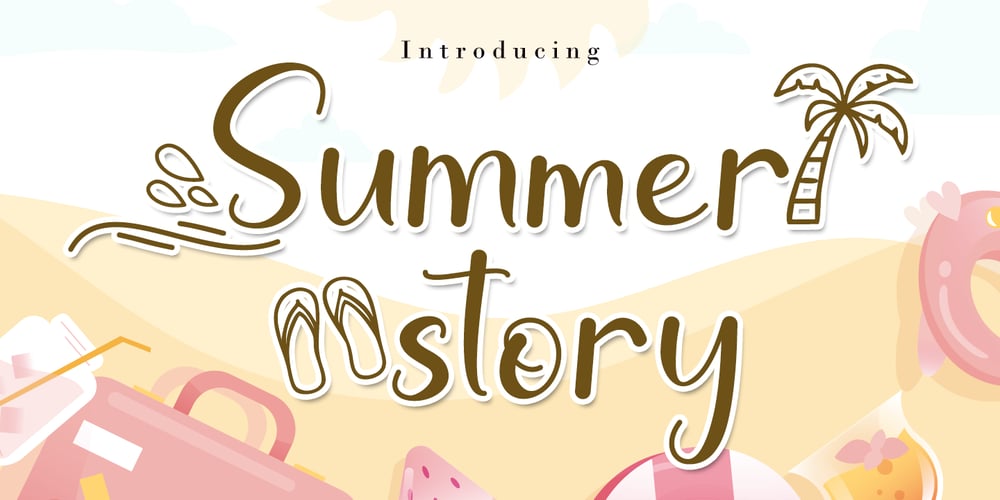
Summer Story Font Family was designed by Agung Eko Nugroho and published by AEN Creative Studio. Summer Story contains 2 styles and family package options. Summer Story is a delicate, elegant and flowing handwritten font. It has beautiful and well balanced characters and as a result, it matches a wide pool of designs. Summer Calling is PUA encoded which means you can access all of the glyphs and swashes with ease!